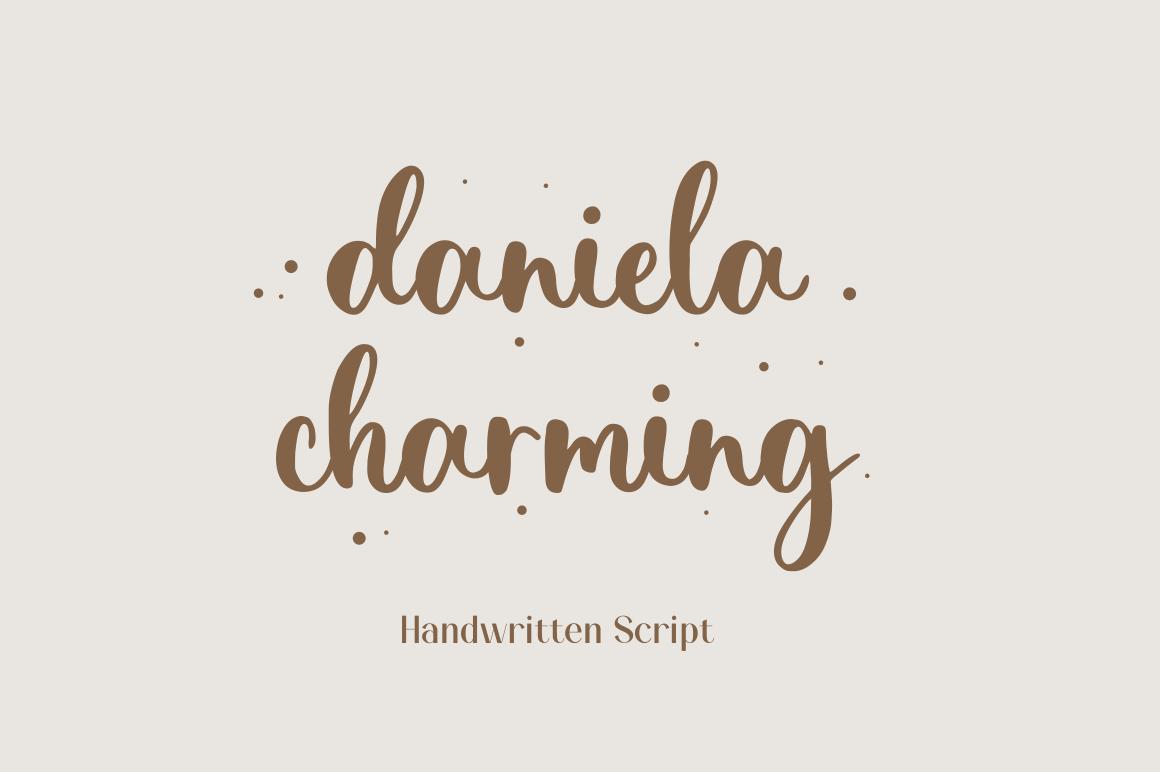
Daniela Charming Font Description
Daniela Charming is a lovely and delicate script font, featuring a relaxed and sweet flow. It is the best choice for creating eye catching logos, branding and quotes. Fall in love with its incredibly versatile style and use it to create spectacular designs!